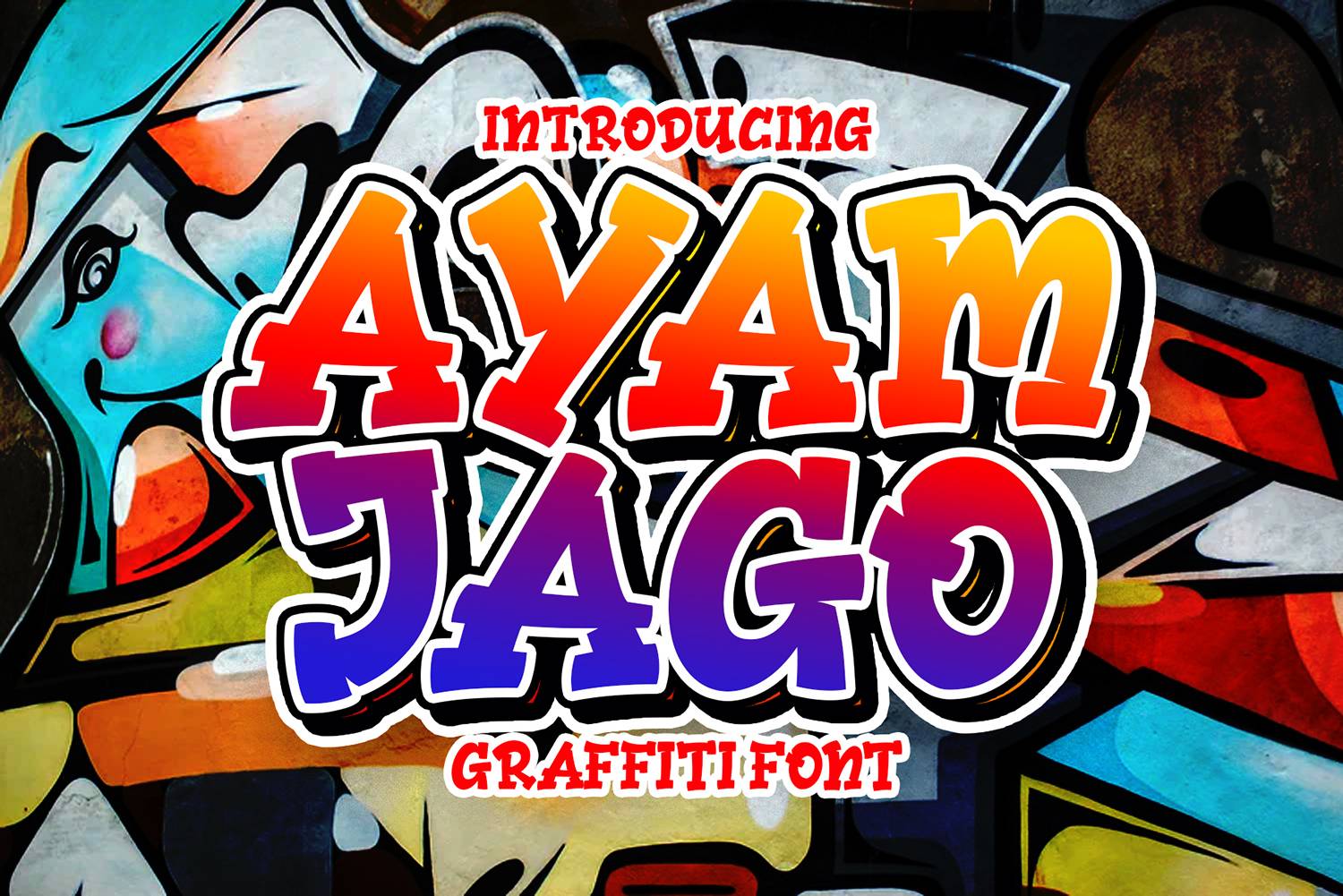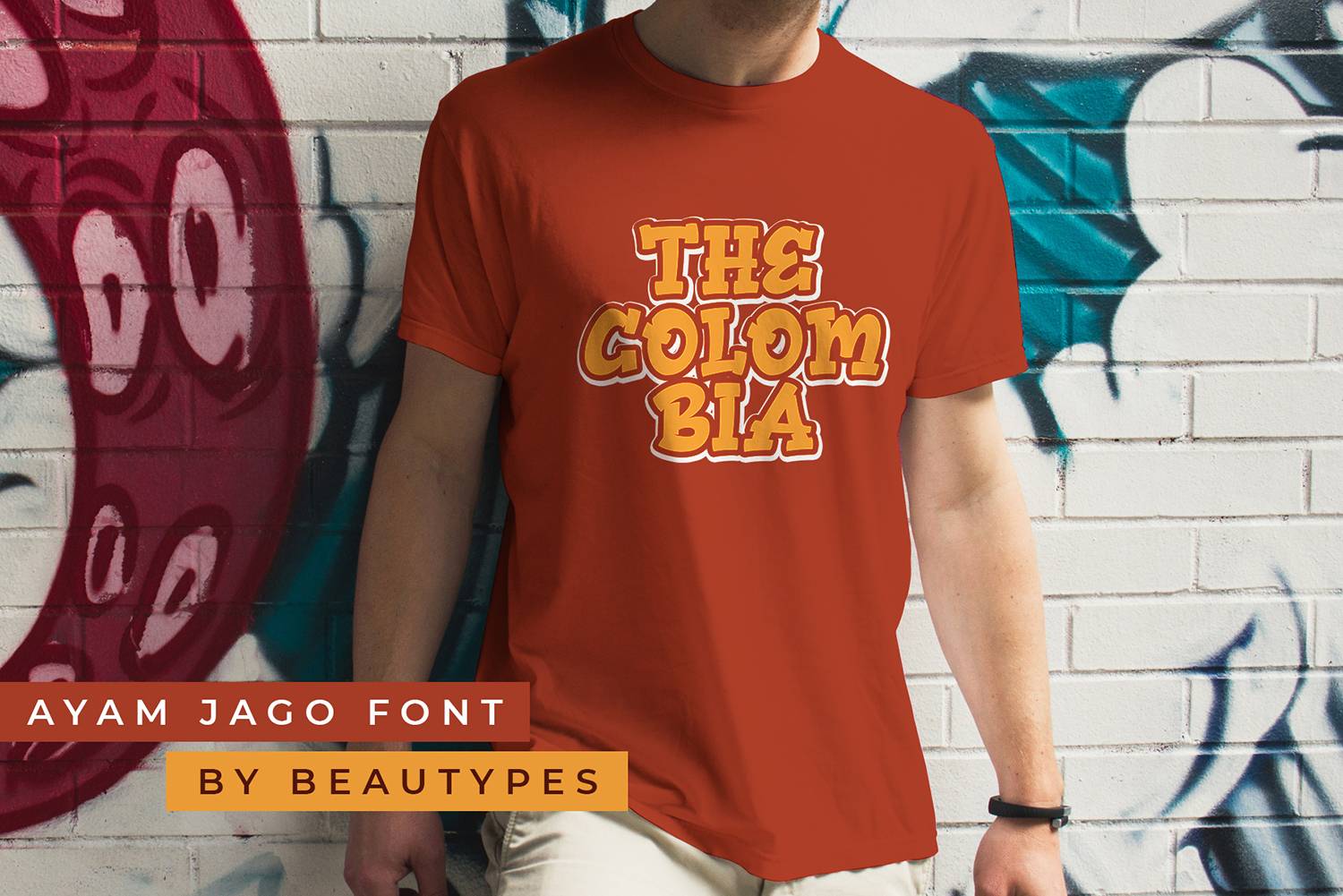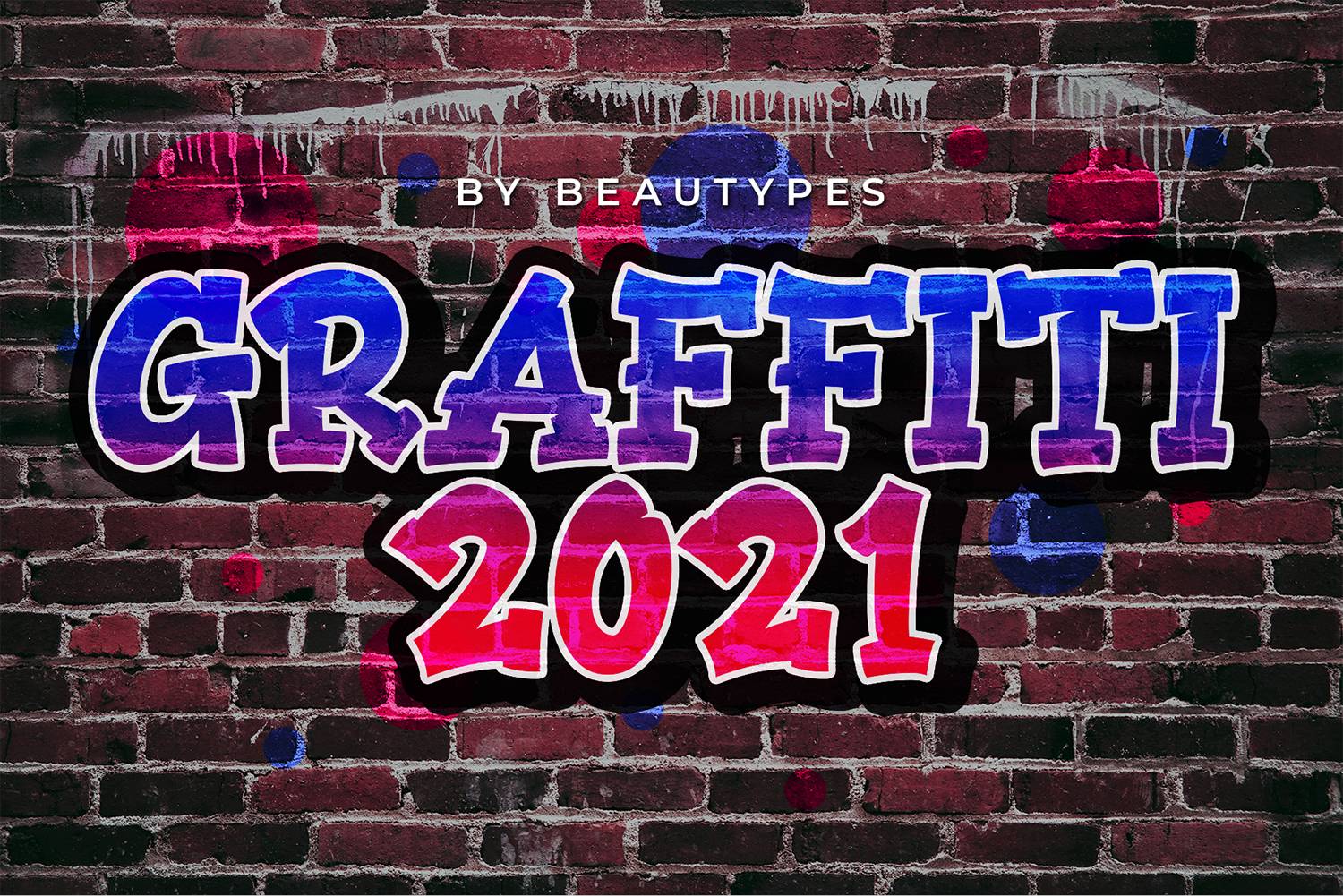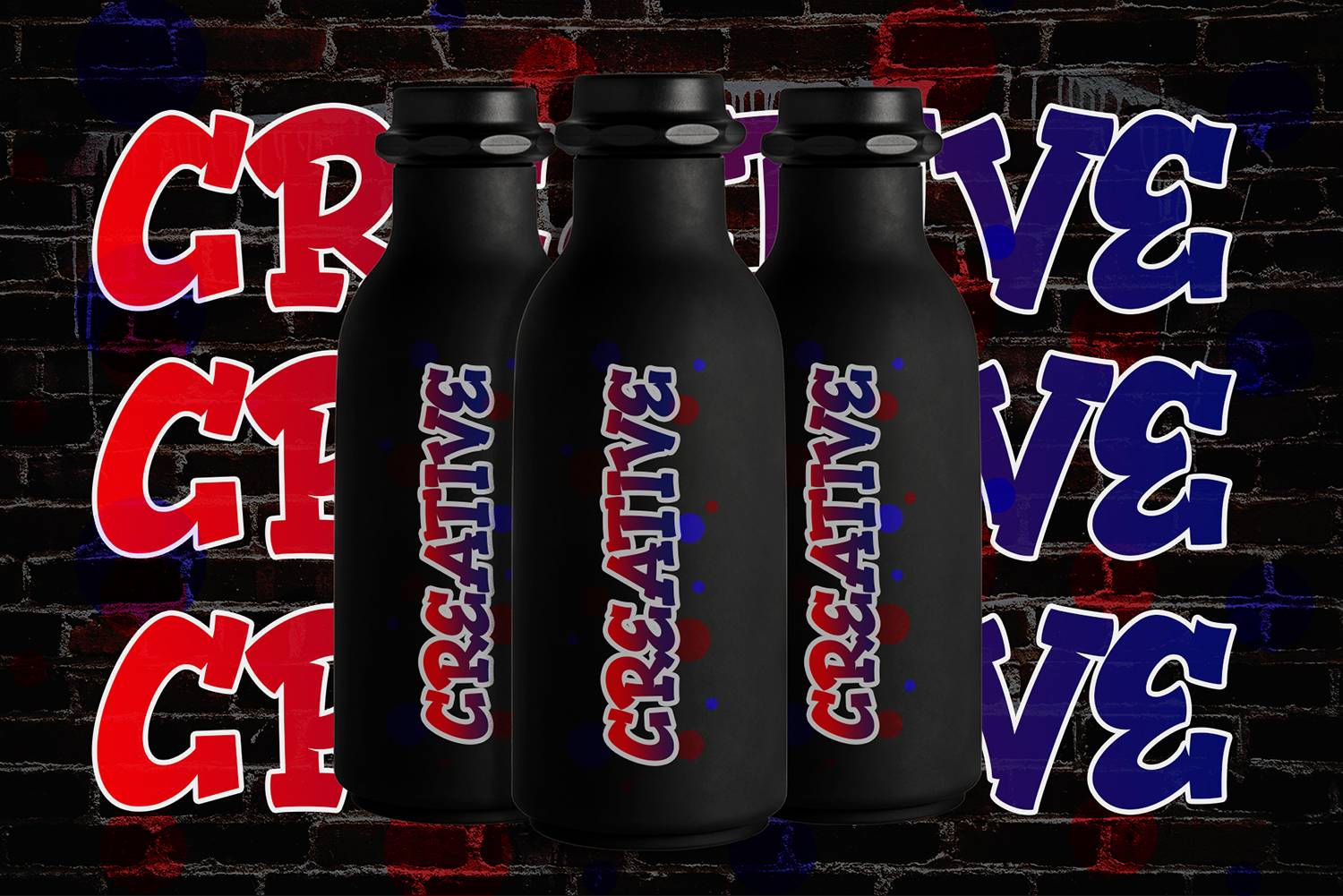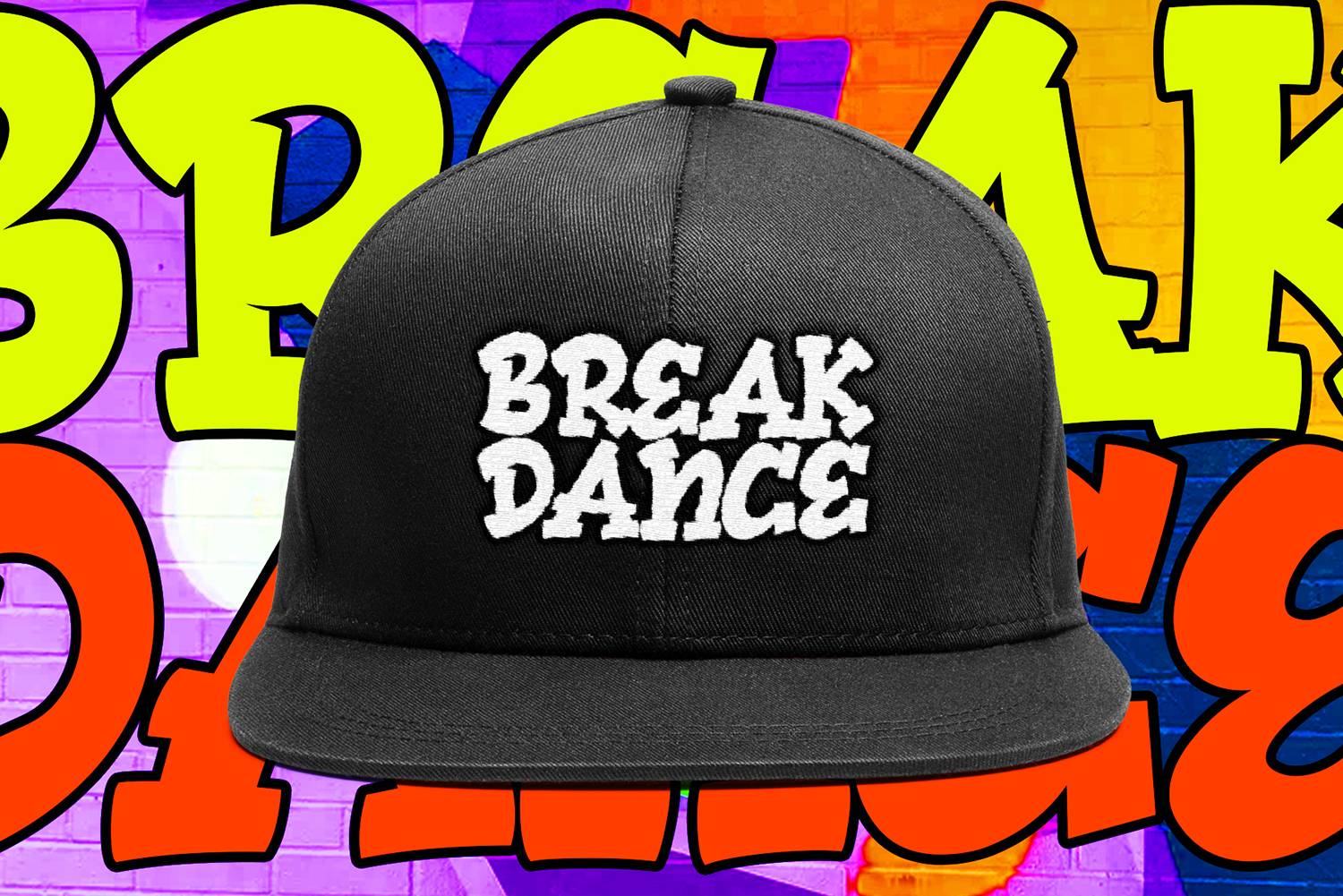
Ayam Jago is a bold and playful slab serif font with thick, blocky serifs and a lively, irregular stroke style that adds a fun and informal character. Its wide letterforms and pronounced personality make it perfect for eye-catching headlines, posters, and branding that wants to convey energy and a friendly, approachable vibe. This font works well in creative and casual contexts where a strong, memorable impression is needed.
Ayam Jago Font
About Ayam Jago Font